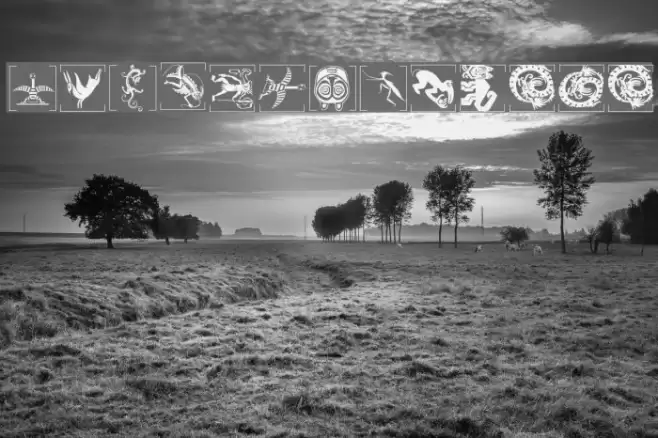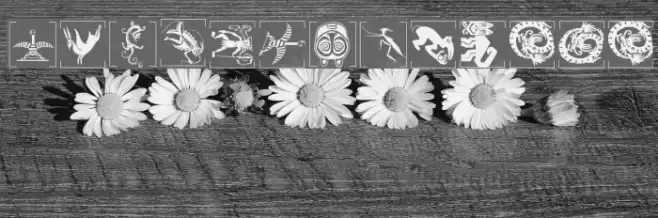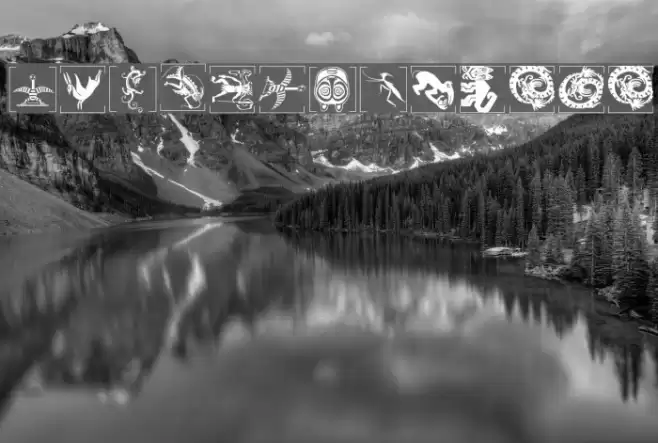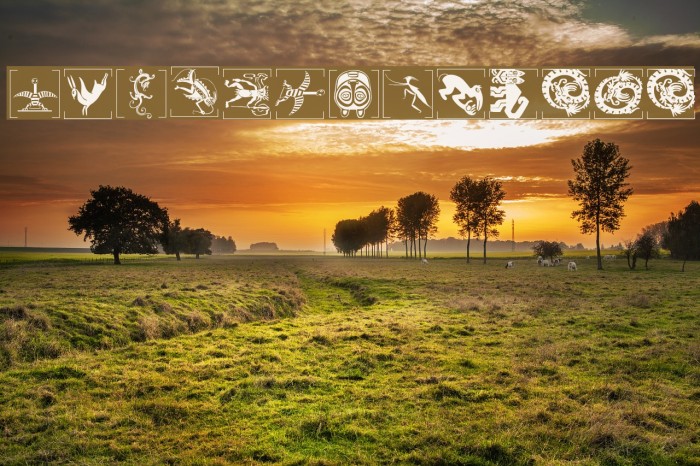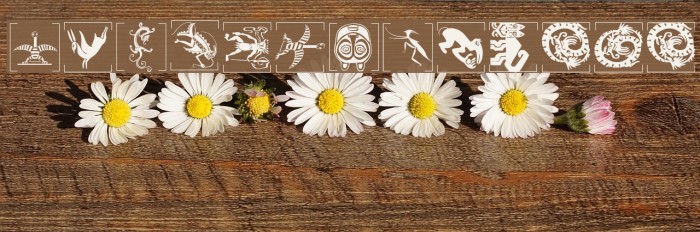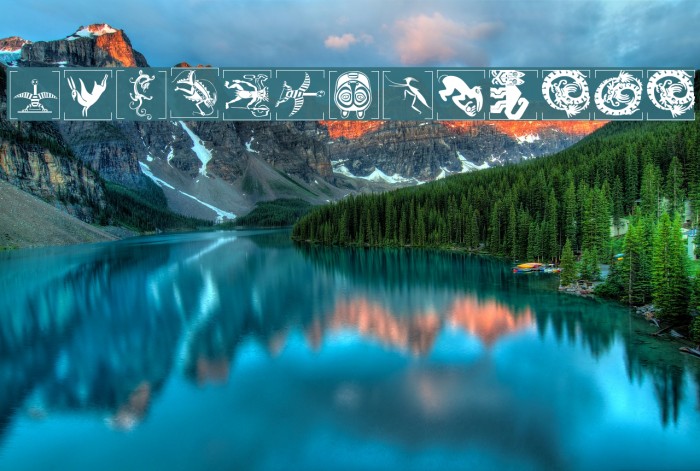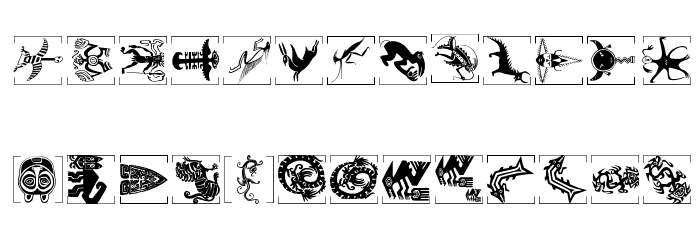
AfricanGhosts Font
AfricanGhosts Description
This font is a unique collection of intricate and stylized glyphs inspired by African art and mythology. Each character is a detailed illustration, incorporating elements such as masks, animals, and abstract patterns. The design is highly decorative, with each letter and symbol resembling a small piece of art. The characters are bold and complex, making them stand out individually. This font is not designed for readability in large blocks of text but rather for artistic and thematic purposes. The intricate details and cultural motifs make it suitable for projects that require a strong visual impact and cultural expression.
A decorative font inspired by African art, featuring intricate and stylized glyphs from Uncategorized fonts.
- Proposed Projects: Ideal for cultural projects, art exhibitions, themed posters, and creative designs that require a strong visual impact.
- Use Case: Logos, Posters, Artistic projects